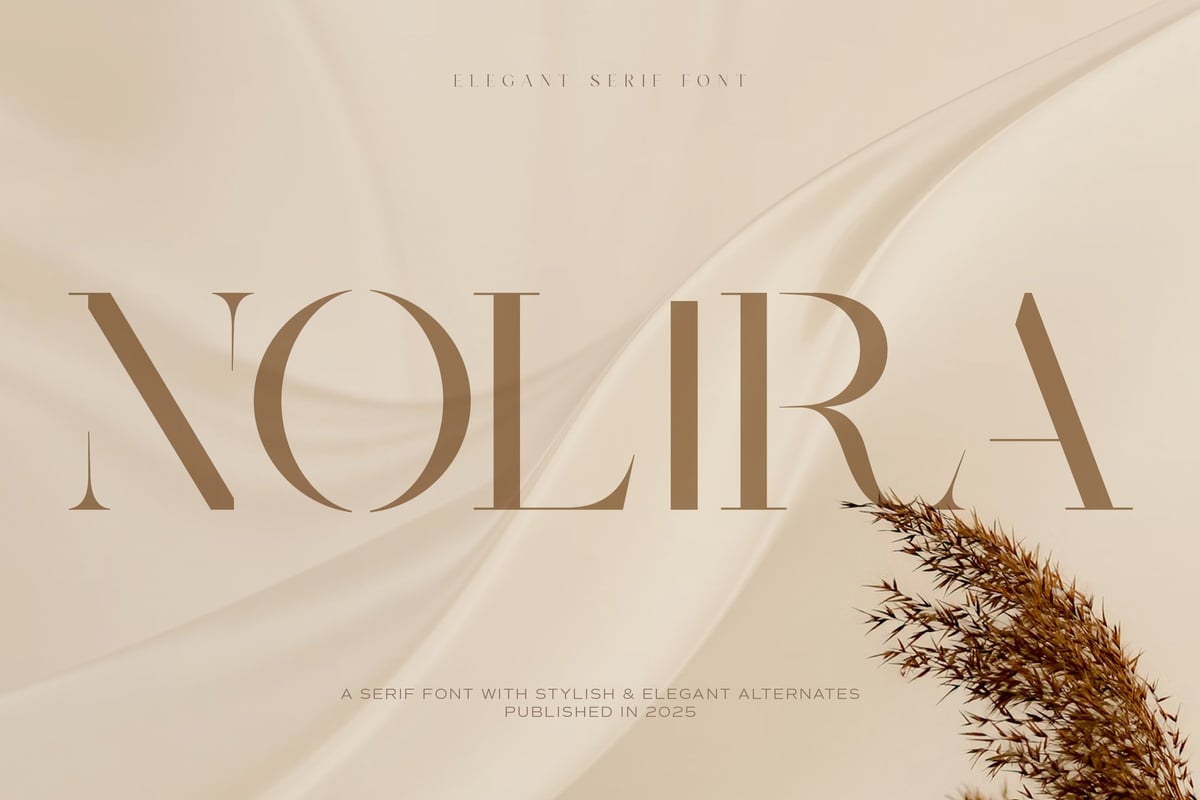
Nolira – Elegant Serif Font
Nolira is a refined serif typeface built for bold statements — where sharp elegance meets editorial power.
Featuring clean lines, balanced proportions, and striking contrast between thick and thin strokes, Nolira brings a strong visual presence to any project without sacrificing readability. Its sharp serifs and sculpted letterforms make it equally at home in high-end branding, editorial layouts, and impactful headlines.
Designed for display use, Nolira is a versatile choice for:
- Editorial and magazine layouts
- Brand identity and logo design
- Packaging and product labels
- Signage and large-format print
- Headlines and display typography
The typeface includes a full character set with uppercase and lowercase letters, numerals, punctuation, ligatures, stylistic alternates, and multilingual support — giving you the flexibility to adapt it across a wide range of languages and creative contexts.